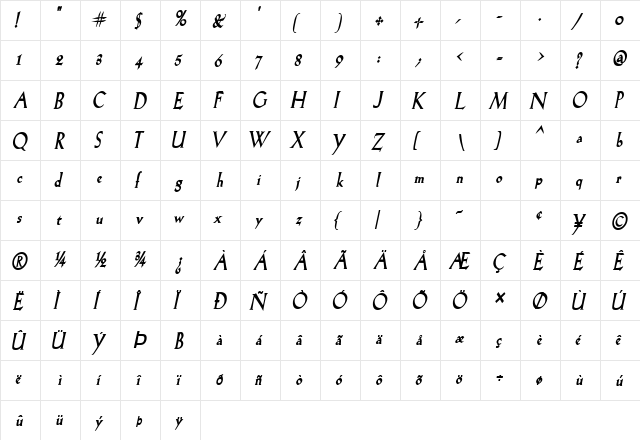
Salem-Condensed Bold Italic Font Preview
Design Context for Salem-Condensed Typeface
Salem-Condensed takes a measured approach to typography — its balanced proportions and neutral character make it a reliable workhorse for both digital and print work. The dynamic lean of this cut emphasises speed and emphasis in any layout. Its bold stroke weight gives it real presence on the page. The condensed width makes it efficient for tight spaces without sacrificing legibility.